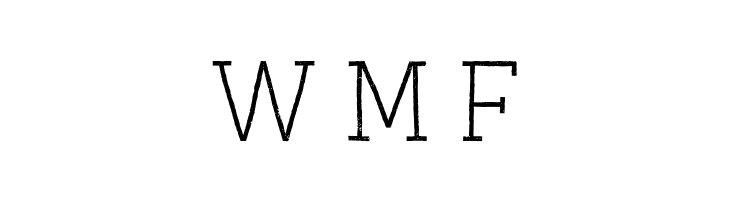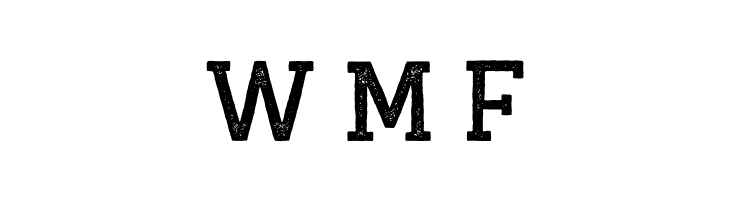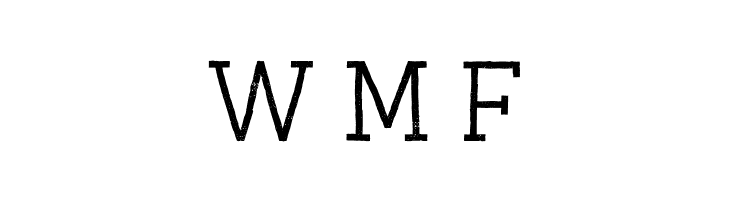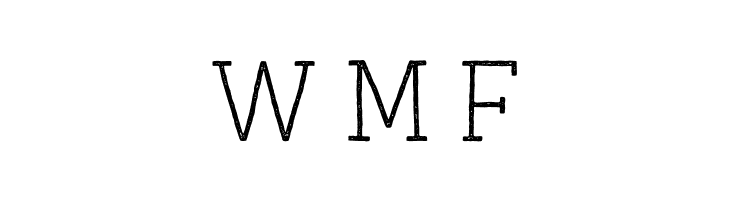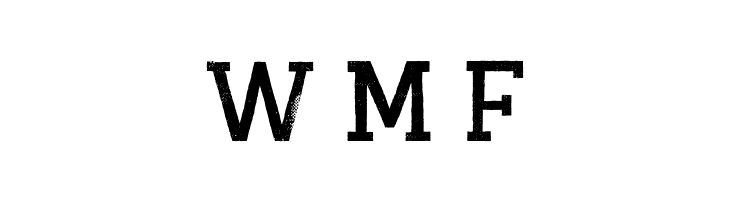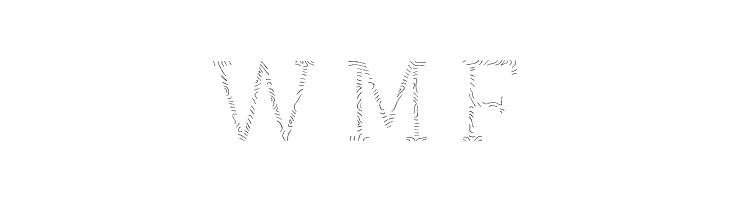
A thin, sketch-like font with a hand-drawn, textured appearance.
A rugged, textured slab serif font with a hand-crafted appearance.
A rugged, textured slab serif font with a handcrafted feel.
A thin, rough slab serif font with a hand-drawn, rustic charm.
A rustic, slab serif font with a textured, vintage appearance.
A rugged, textured slab serif font with a vintage, handcrafted feel.
A thin, rustic slab serif font with a vintage, handcrafted appearance.
A textured slab serif font with a vintage, stamped appearance.
A rugged, textured slab serif font with a vintage, industrial feel.
A thin, slab serif font with a vintage, stamped texture.